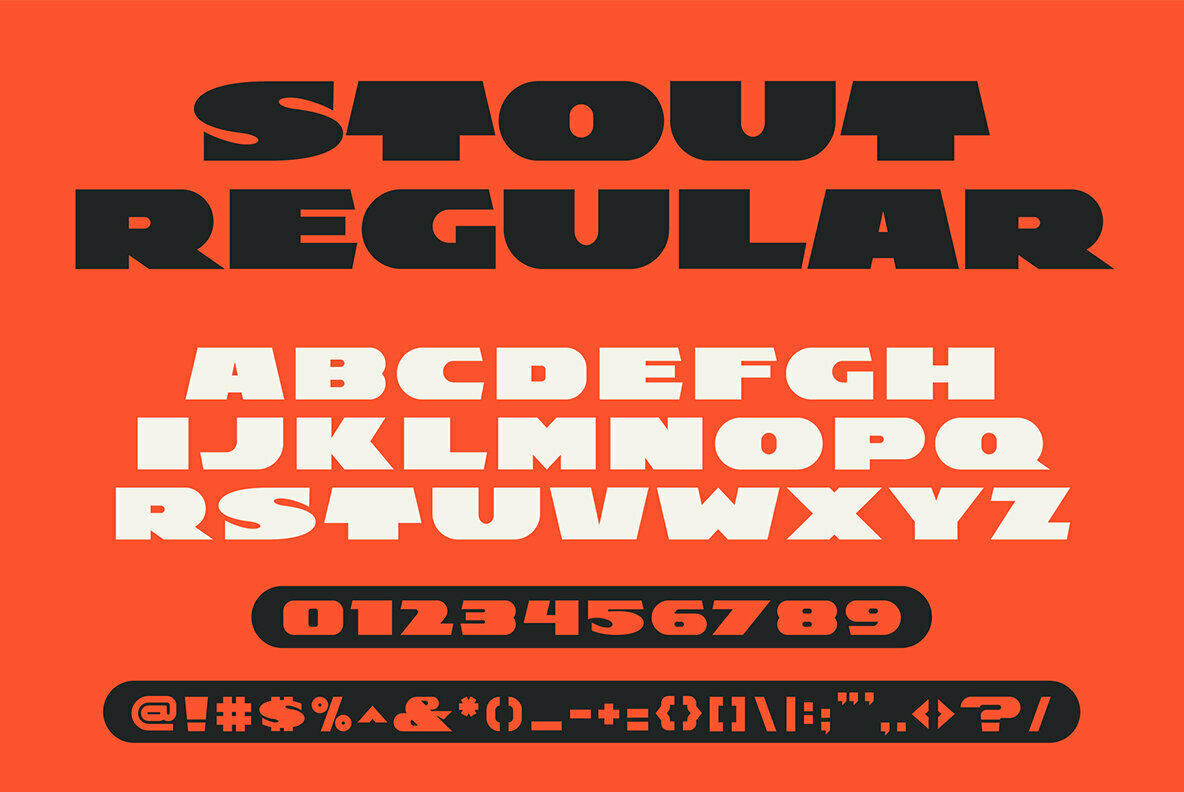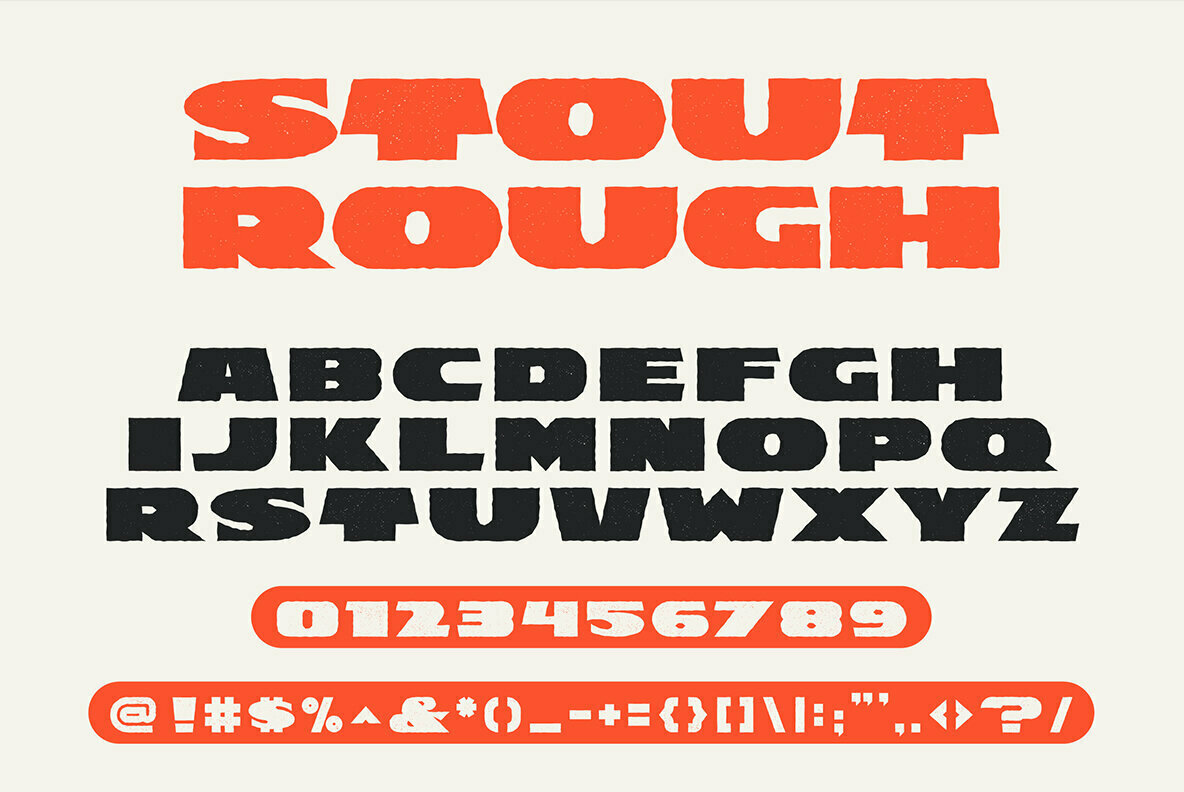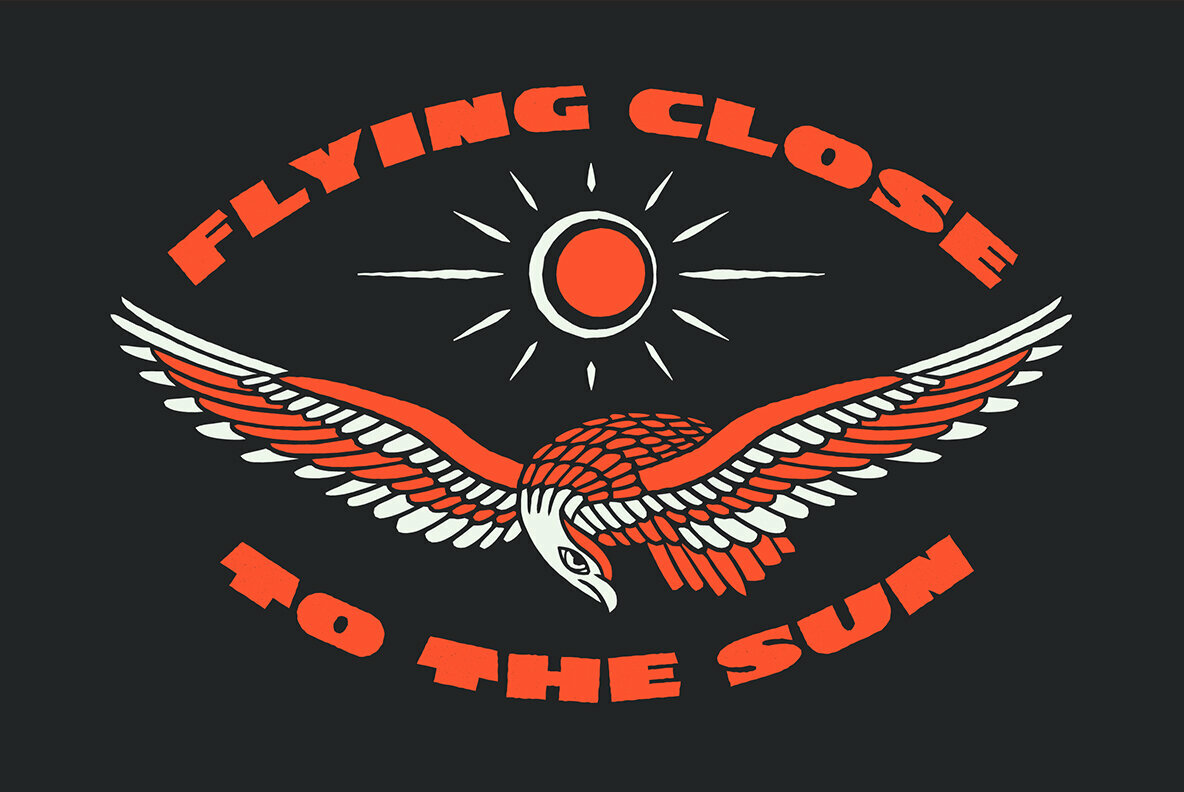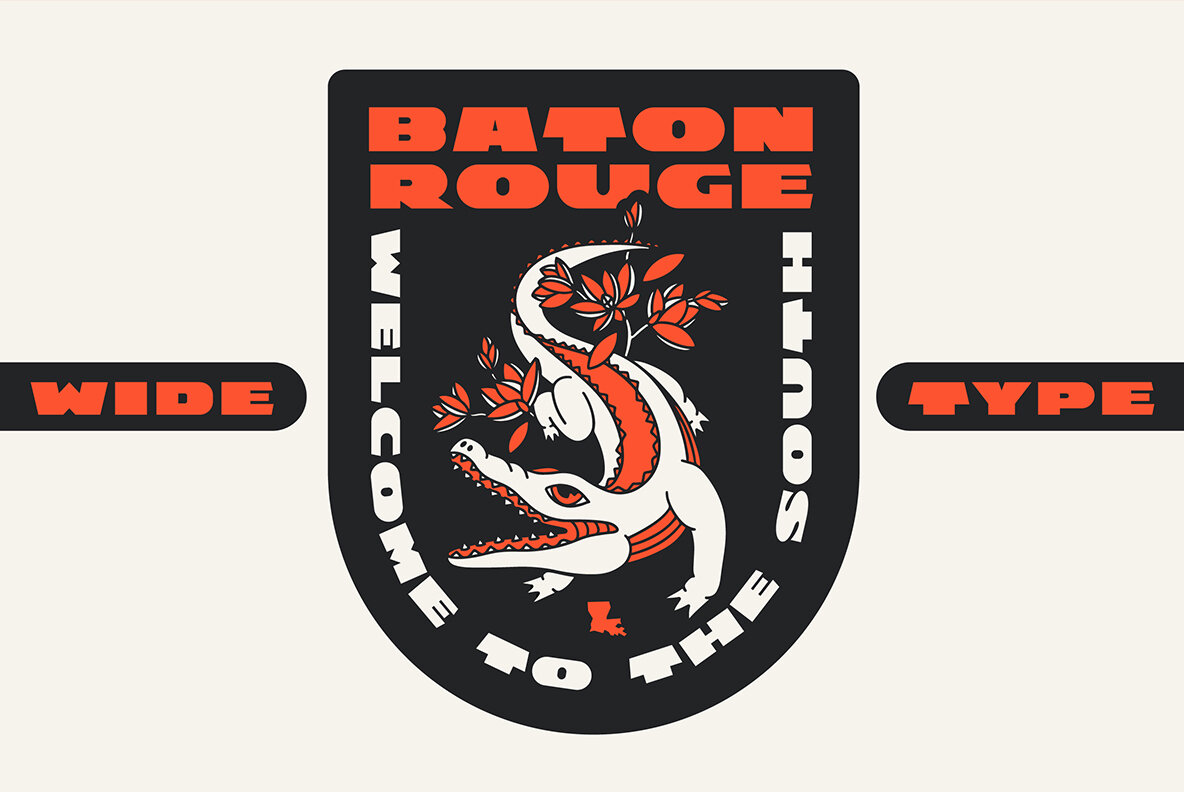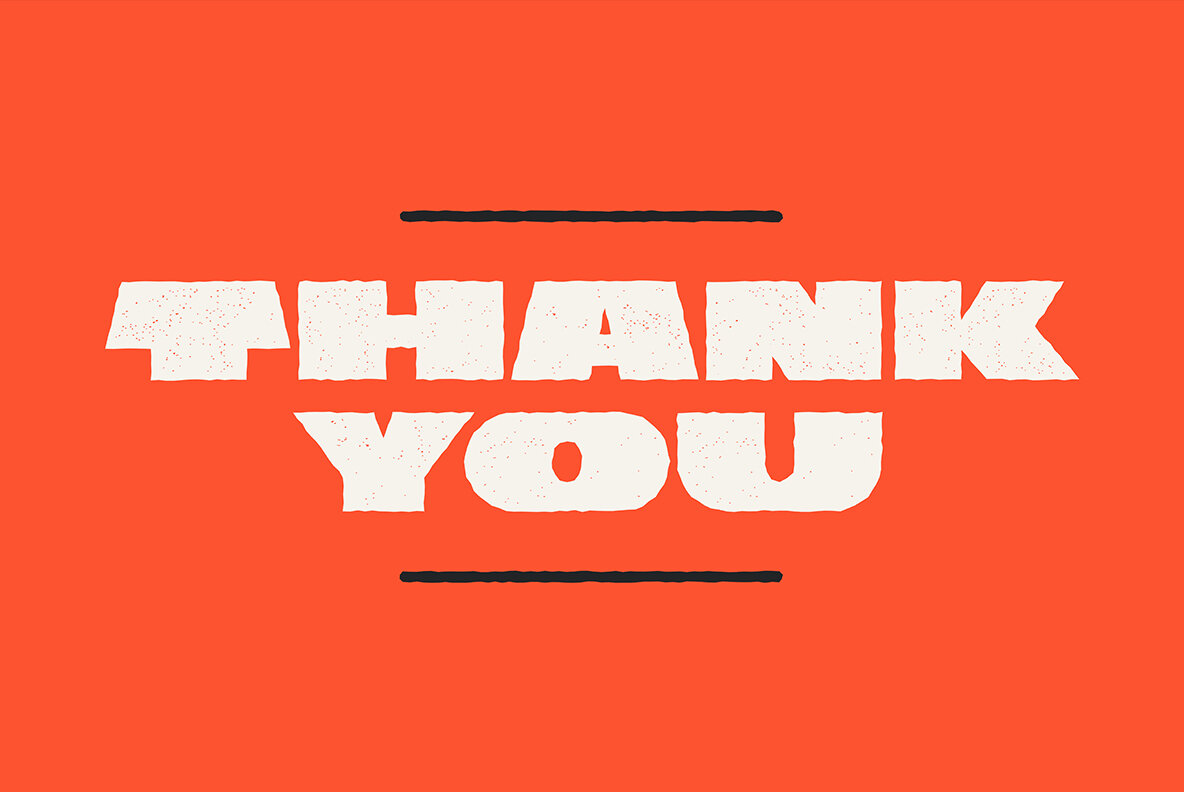
Stout Font
Every letter of Stout was refined to give you the most exceptional bold and wide font on the market. Stout works well for modern logotypes, while Stout Rough has a more vintage vibe. Stout Rough has an organic feel that helps bring a handcrafted element to your work.